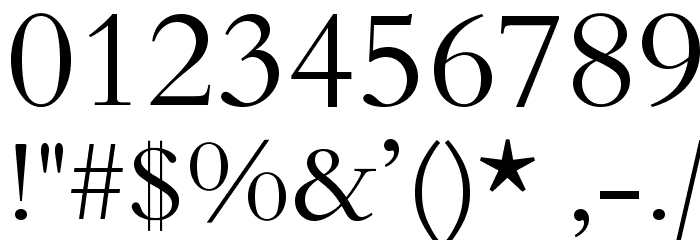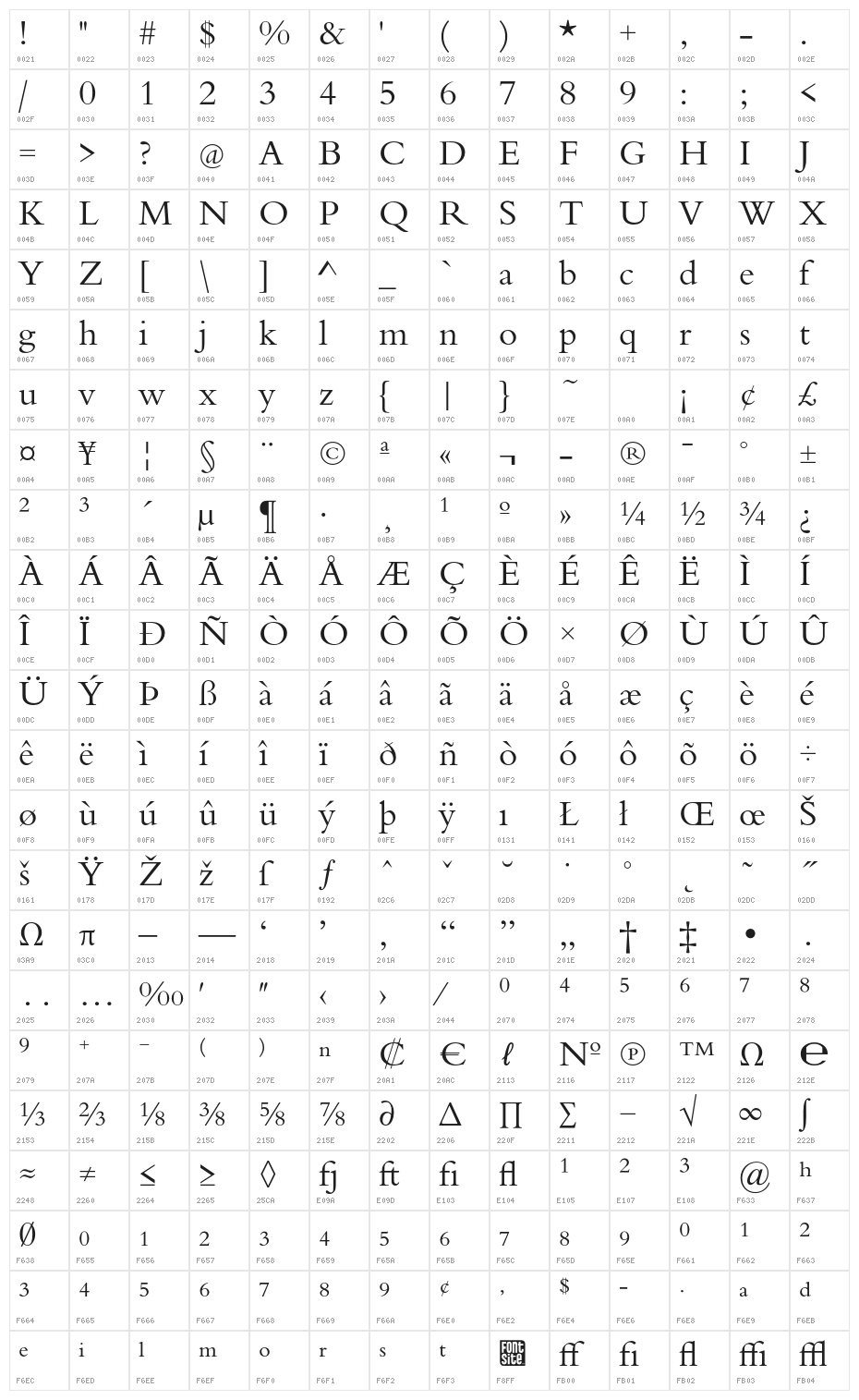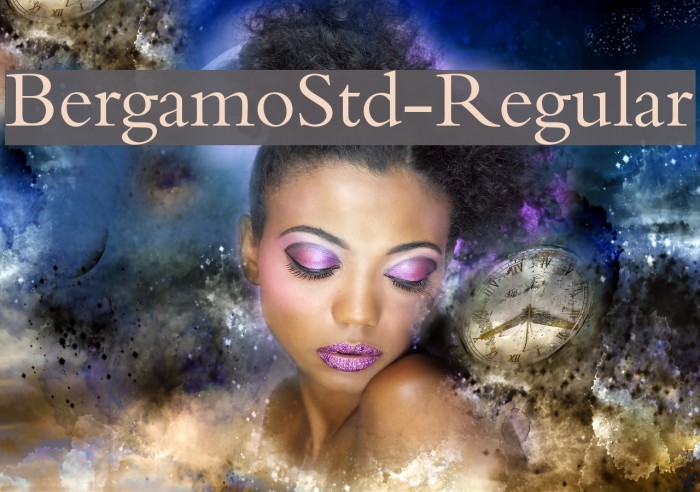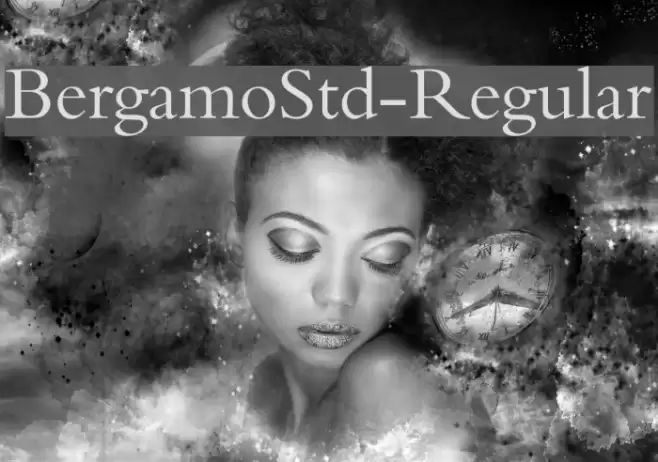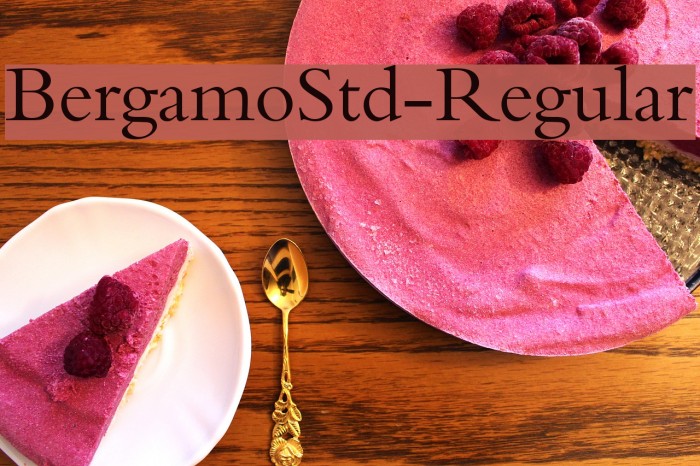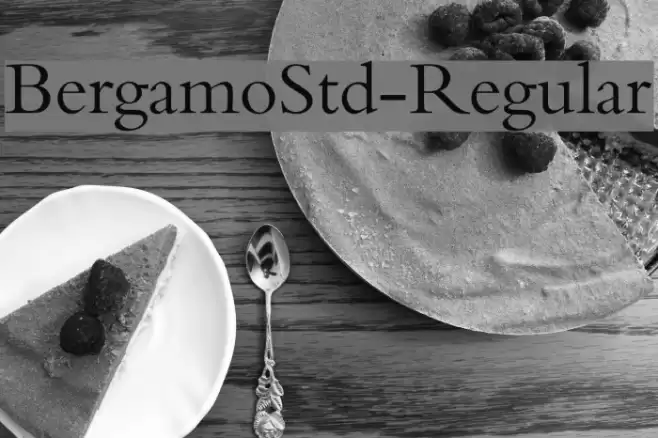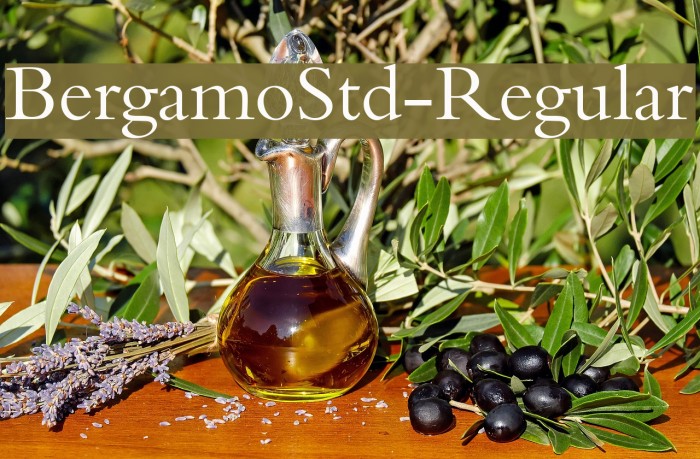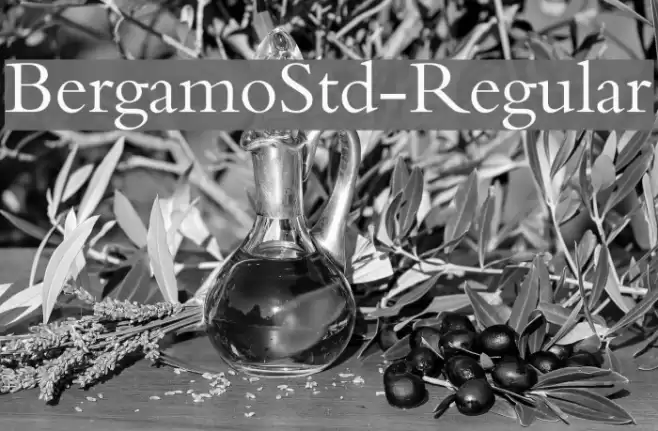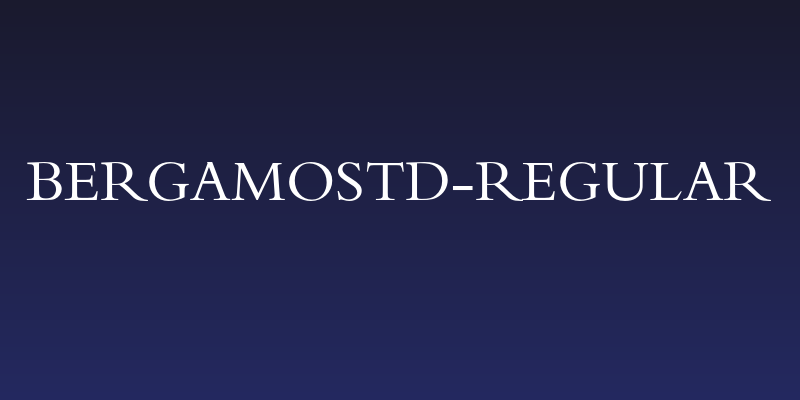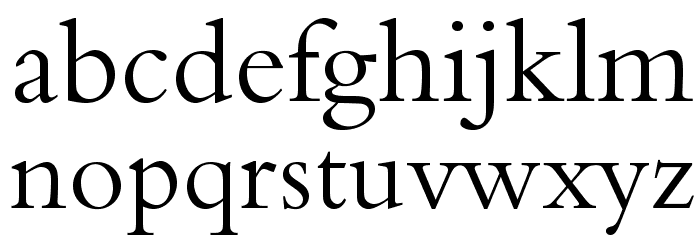
BergamoStd-Regular Font
BergamoStd-Regular Description
This font exhibits a classic and elegant serif style, characterized by its refined and balanced letterforms. The uppercase letters are stately and well-proportioned, while the lowercase letters maintain a harmonious flow. The numerals are clear and distinct, ensuring readability. The special characters are thoughtfully designed, complementing the overall aesthetic. The strokes vary in thickness, providing a medium contrast that enhances the font's legibility and sophistication. This typeface is suitable for formal and traditional applications, offering a timeless appeal.